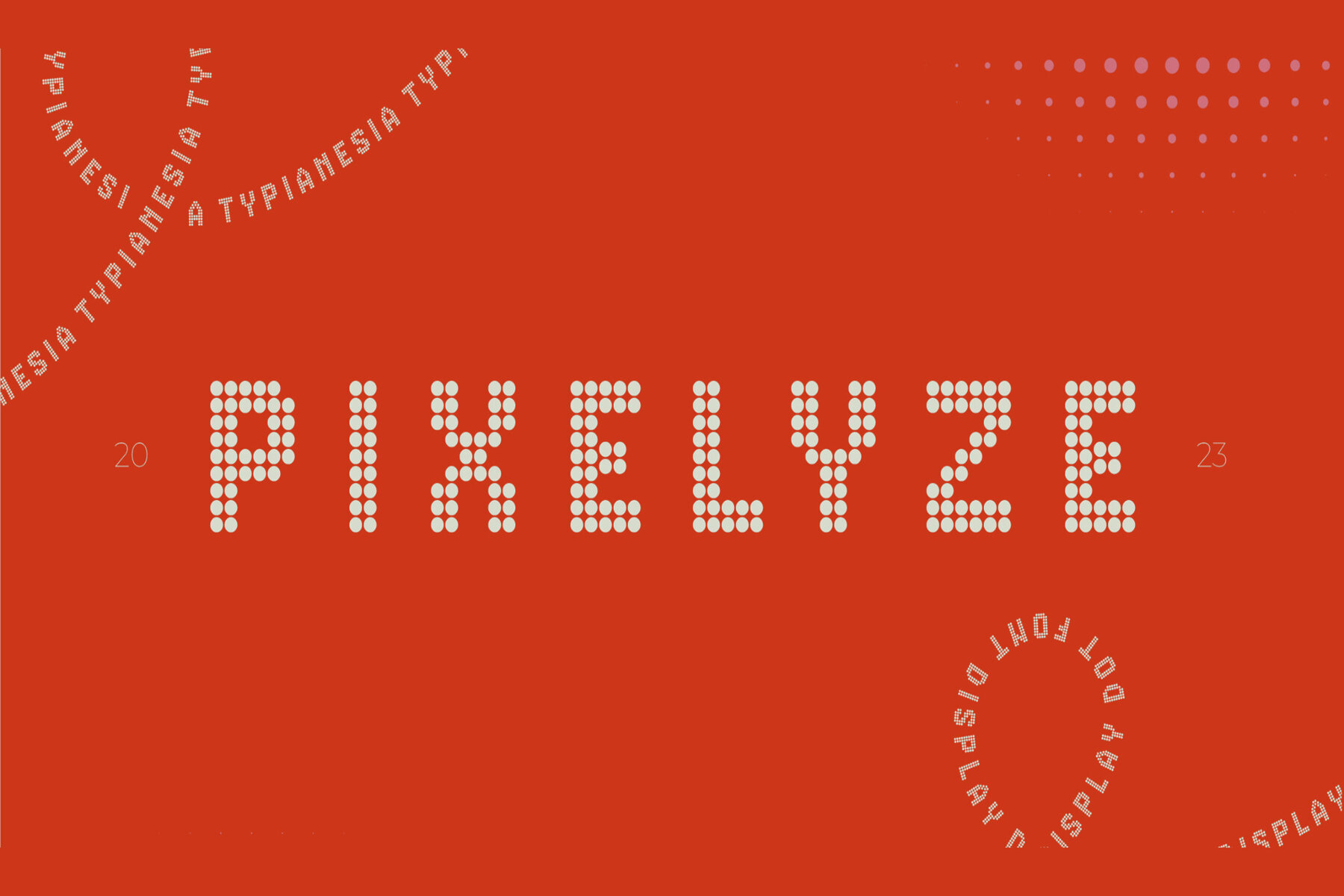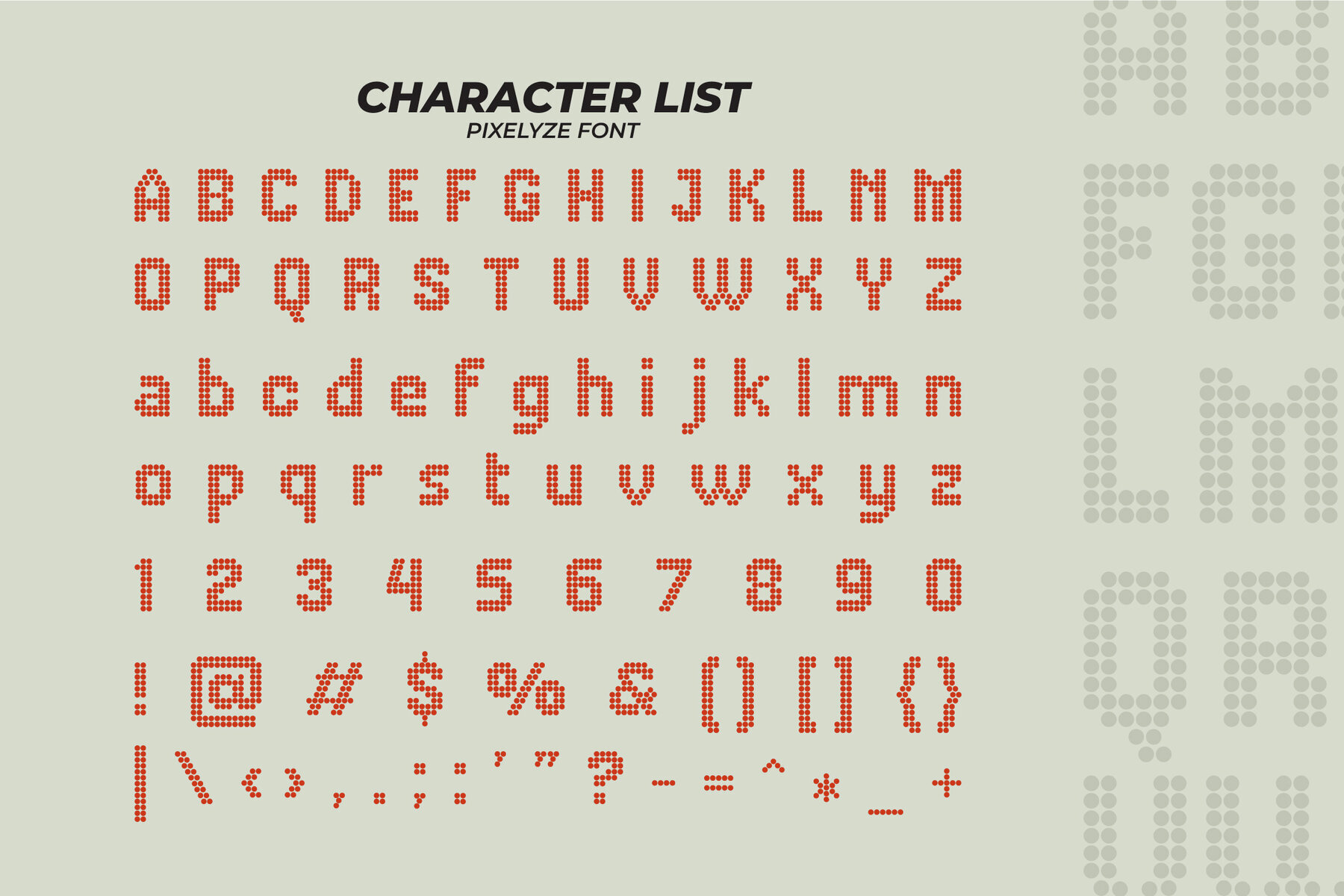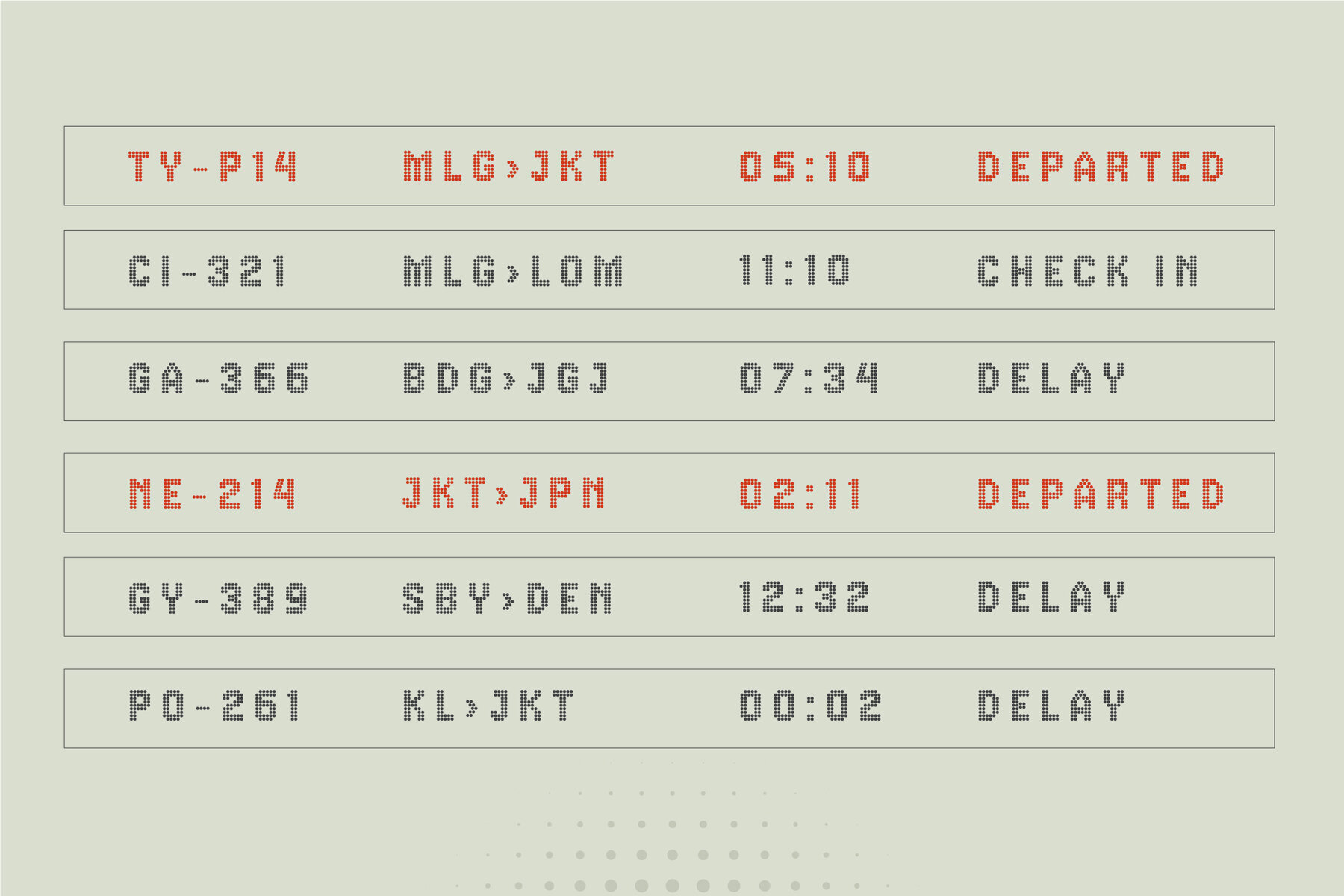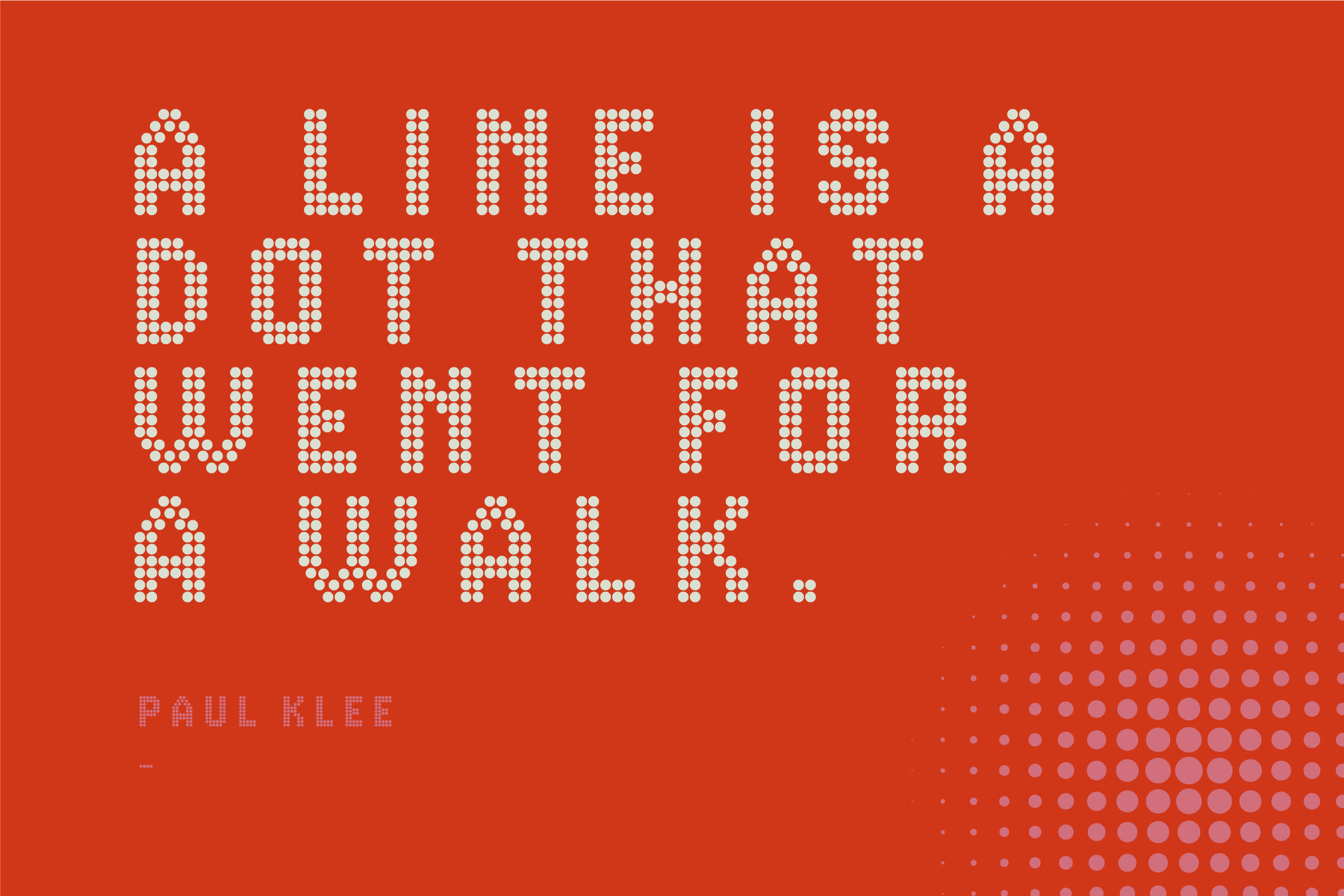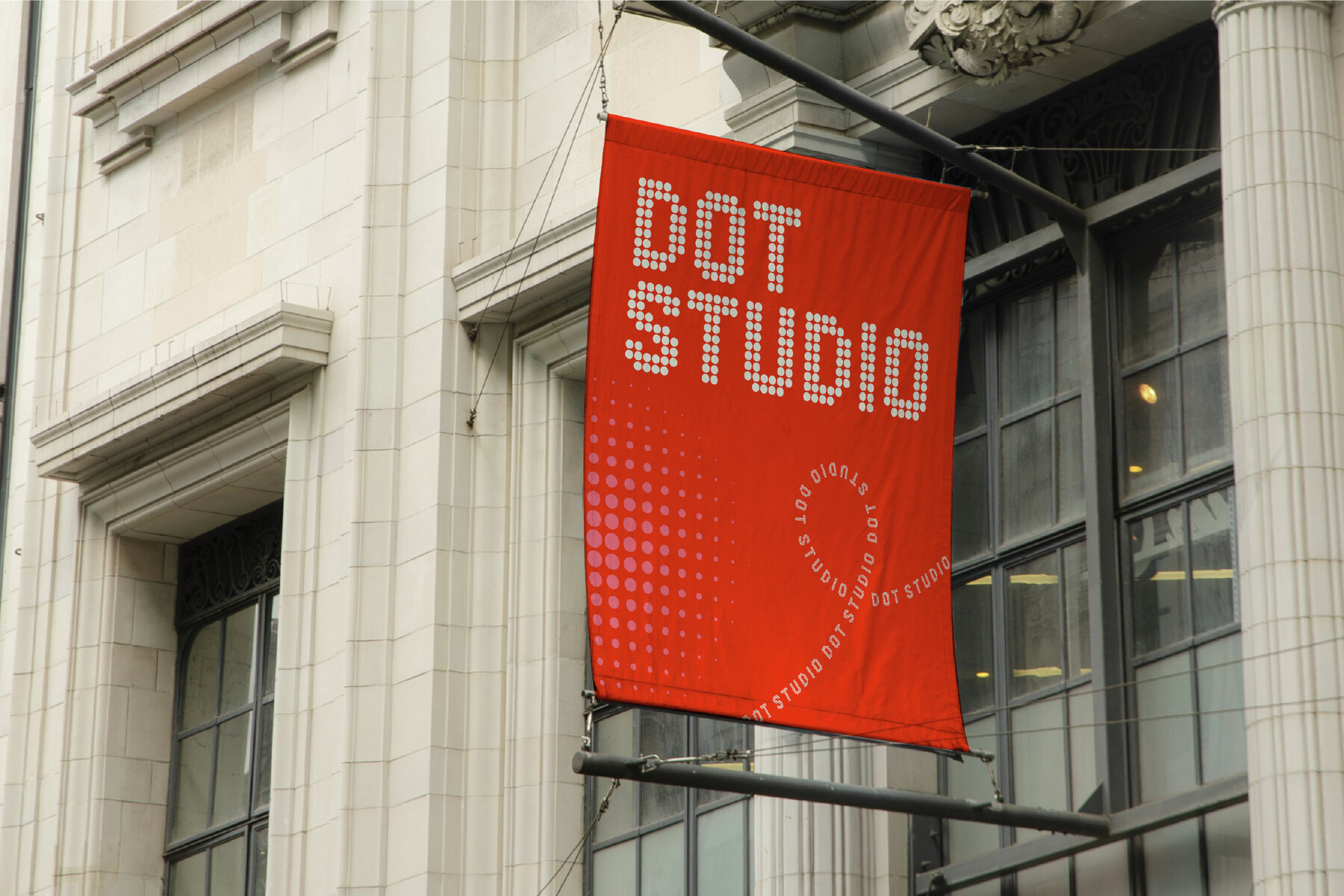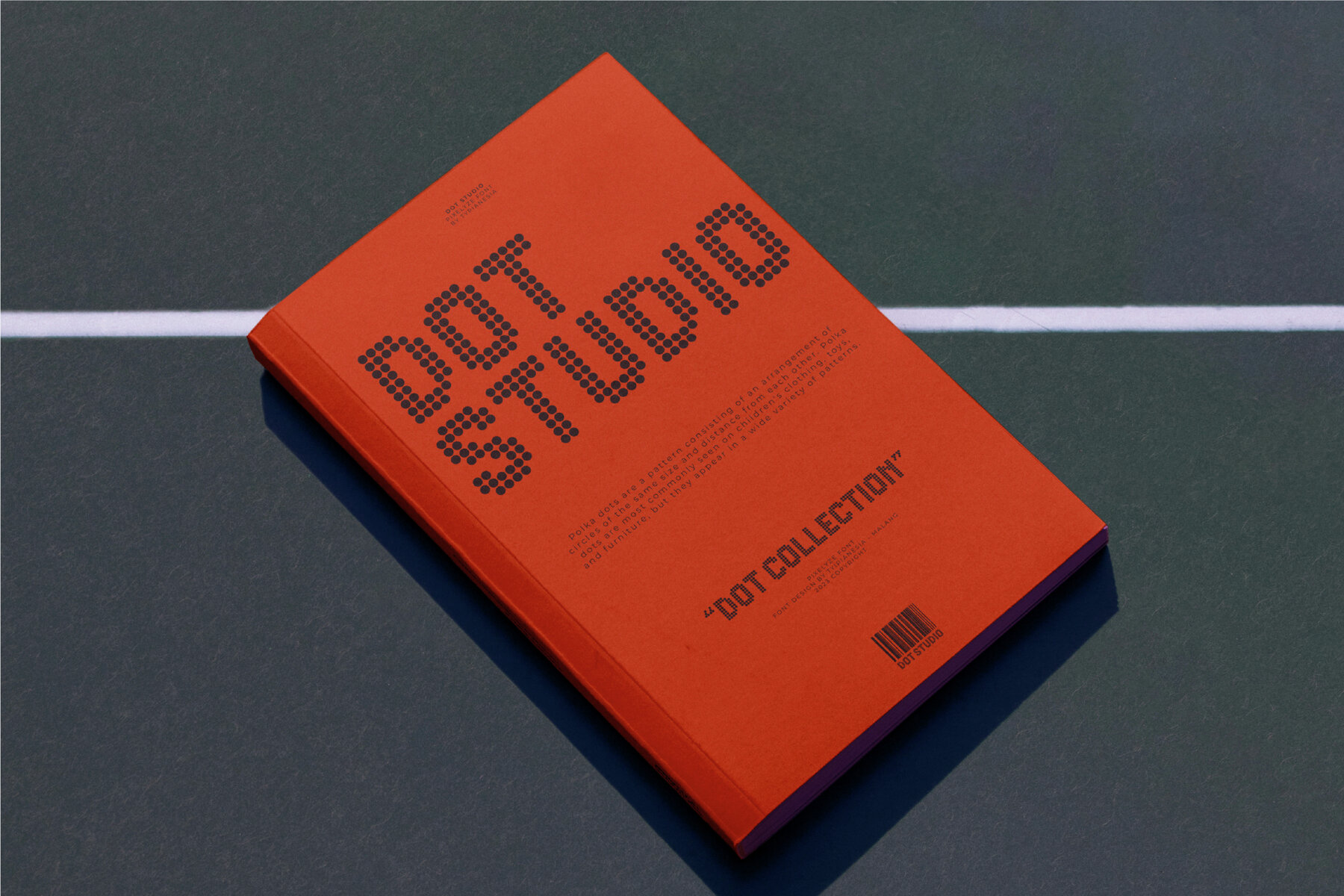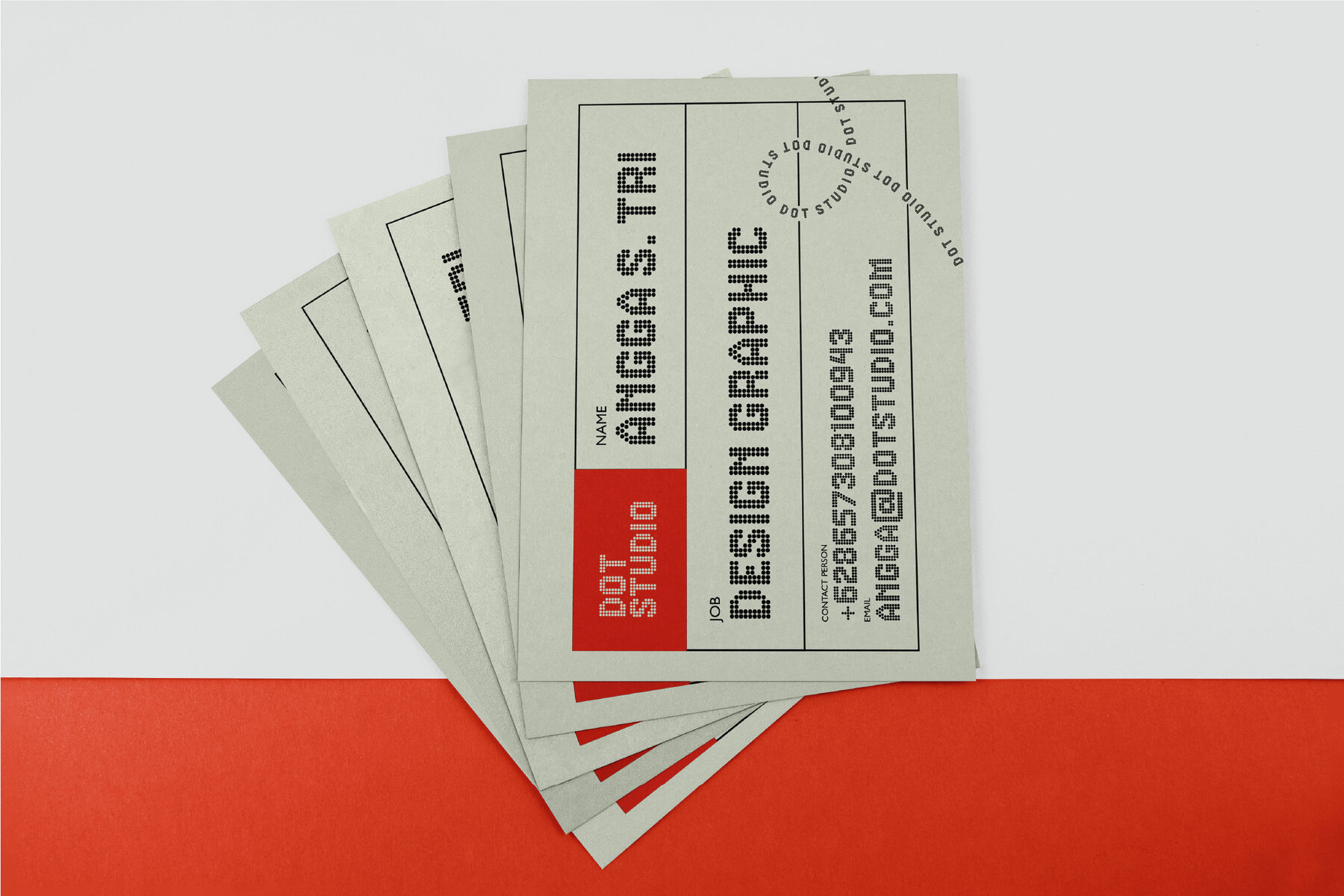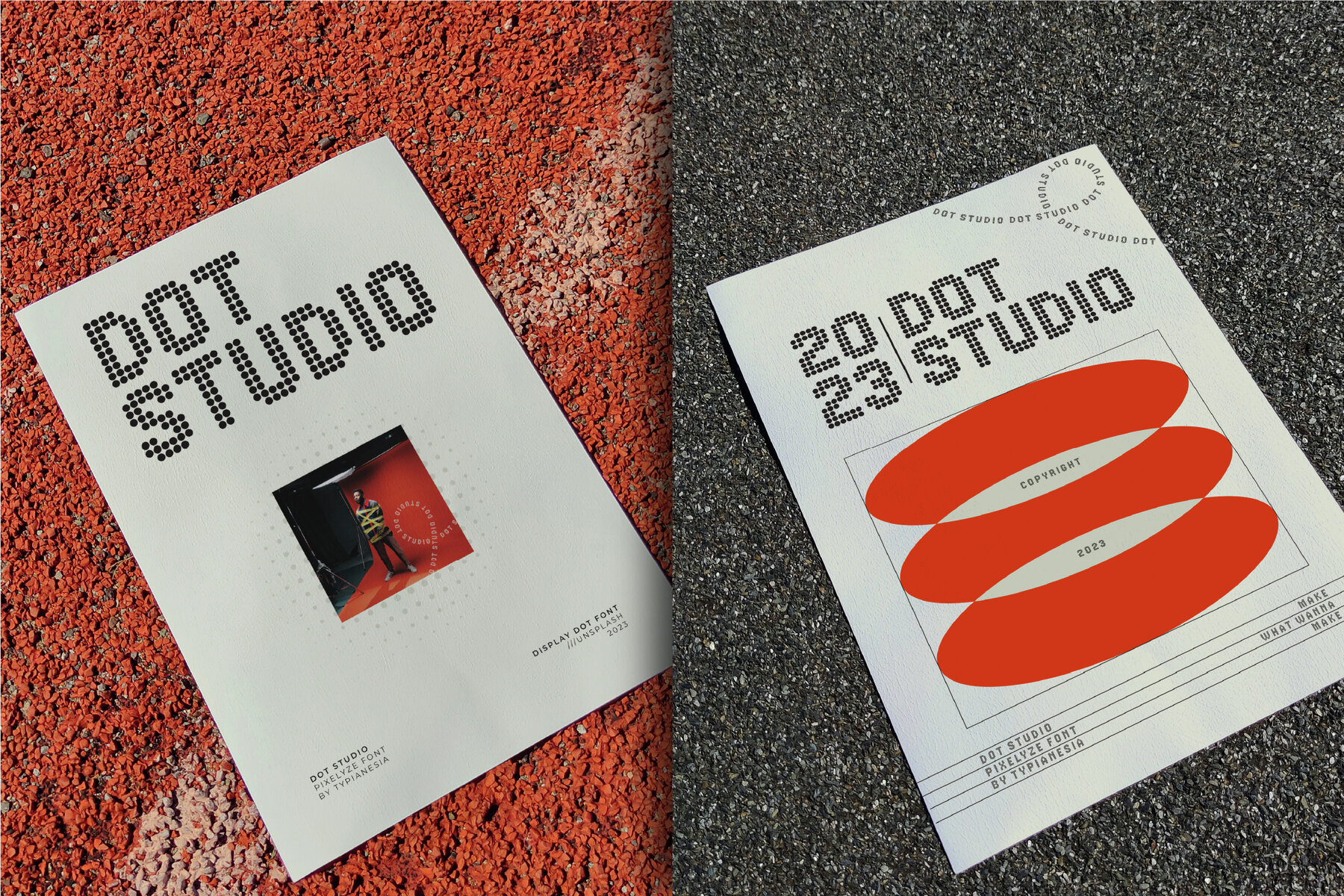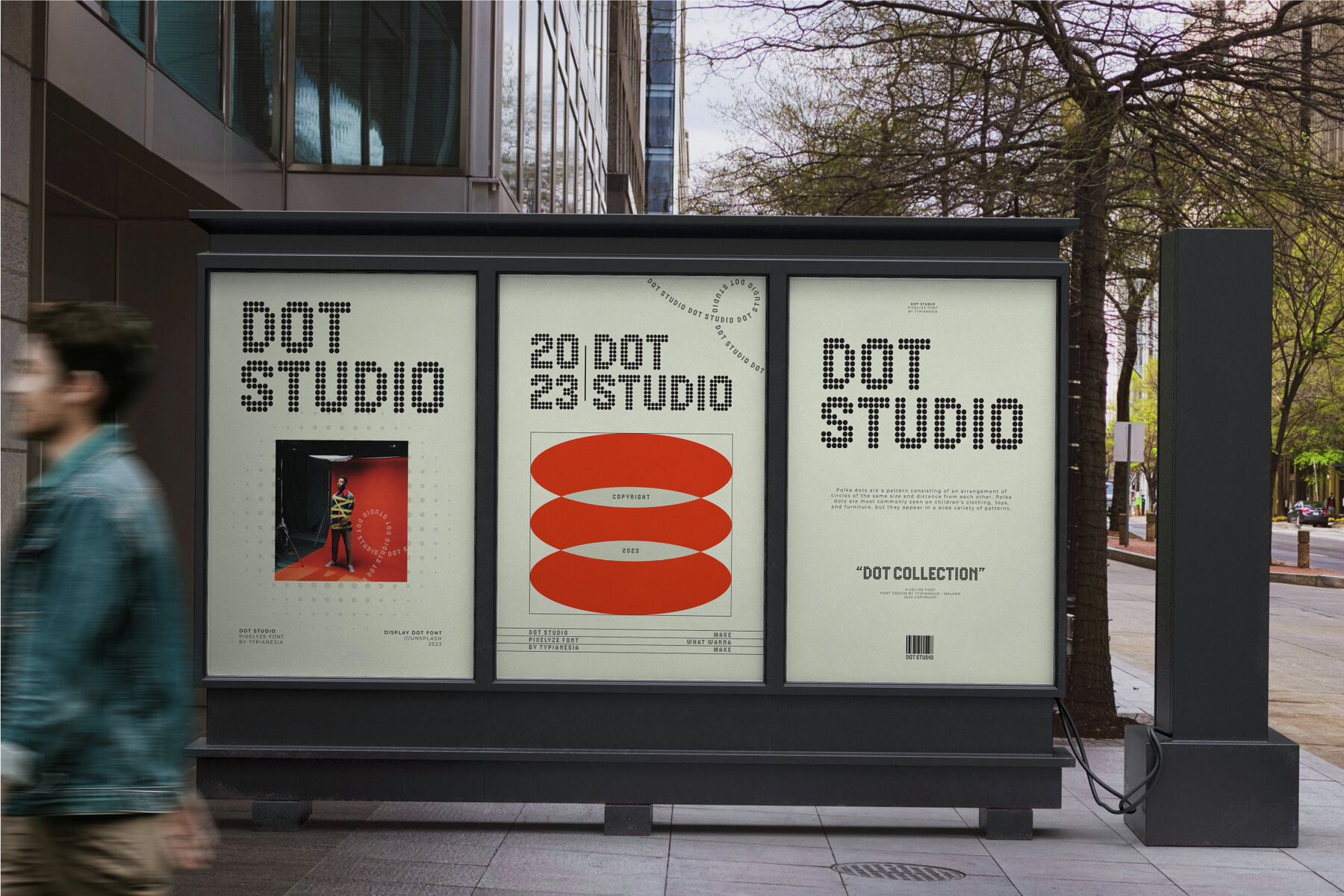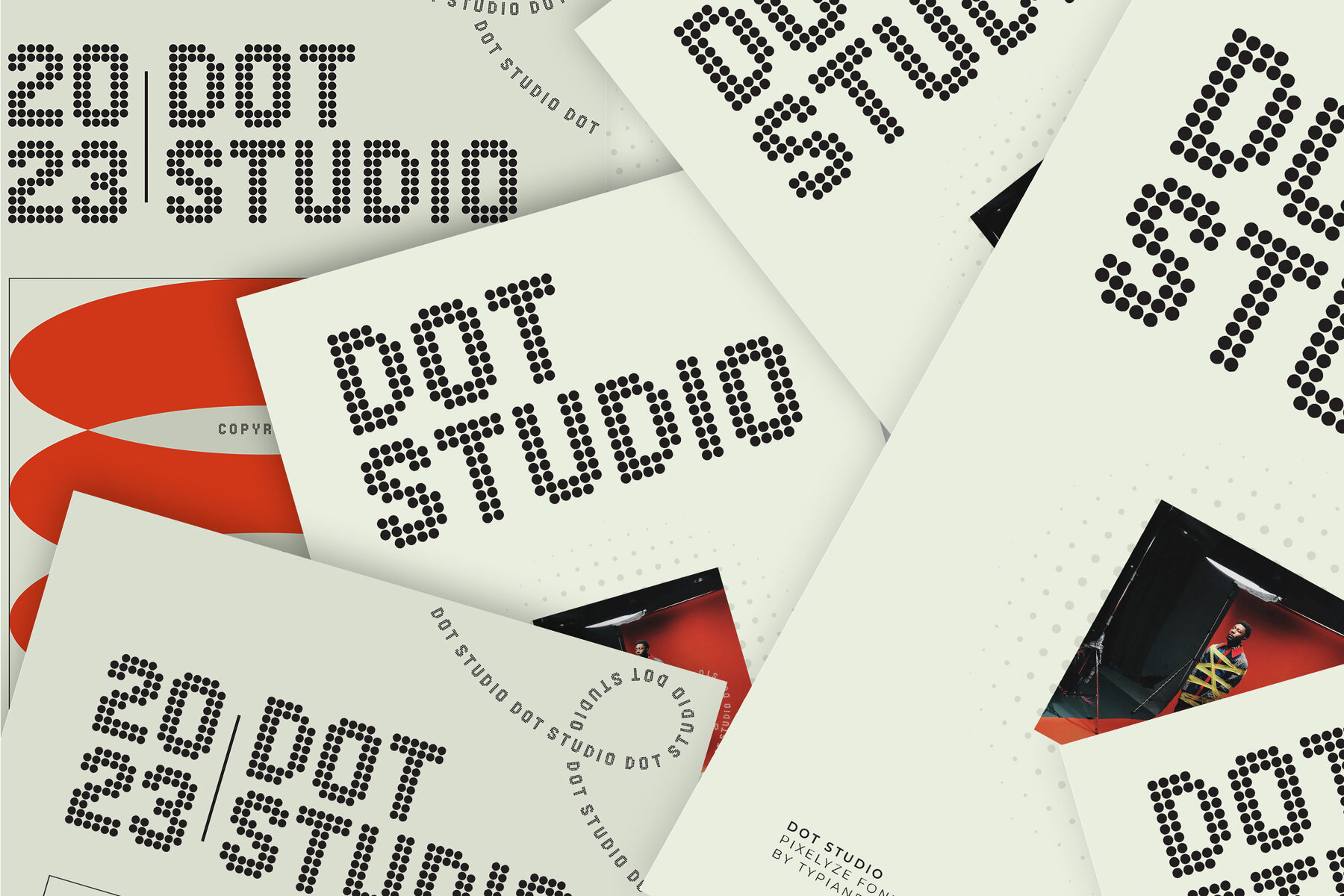
Pixelyze Font
Pixelyze Regular
Pixelyze brings a unique and captivating dot font display style to elevate your visual content. With a perfect blend of modernity and nostalgia, our dot font display adds a distinctive touch to your designs. Pixelyze is suitable for applications or projects that want to give a retro feel, pixel art, or a look inspired by classic games. such as Retro Games or Pixel Art, Retro Web Graphics, Mobile Apps with Vintage Themes, Poster Designs or Promotional Materials, Game Jams or Creative Projects, book cover. Apart from that, Pixelyze can also be used for experimental or artistic purposes depending on the user's creativity.